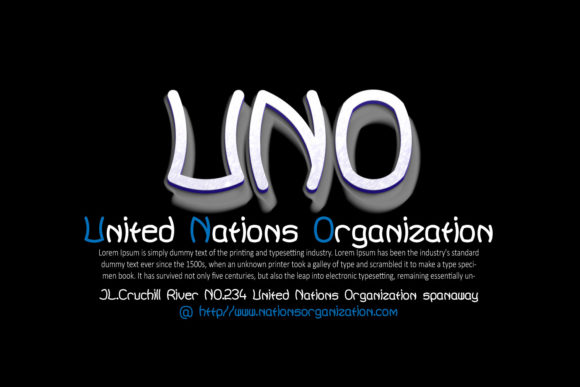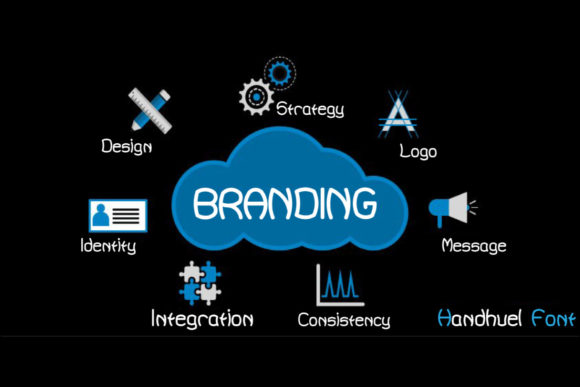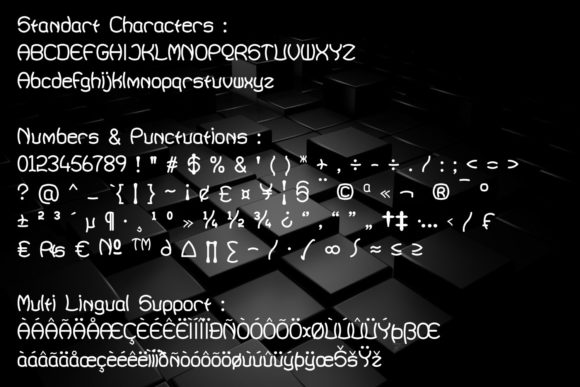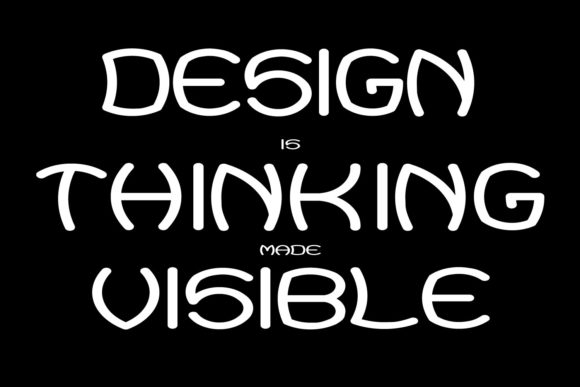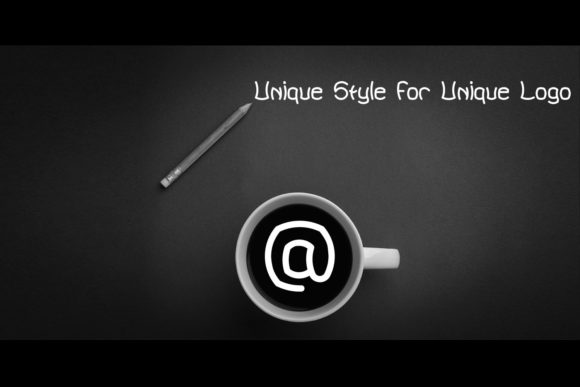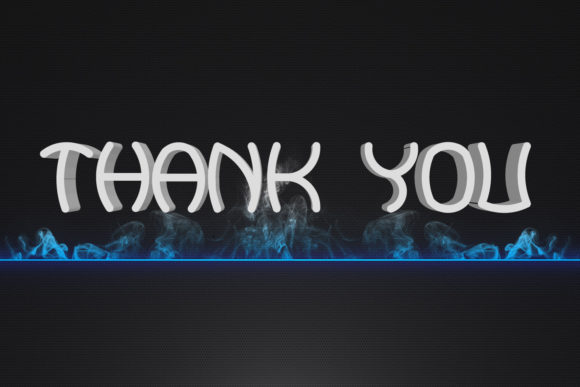
Introducing Handhuel Font: The Bouncy and Quirky Display Font You Need
Are you tired of using the same old fonts in your designs? Do you want to add a fresh and contemporary touch to your creative projects? Look no further than Handhuel Font, a bouncy and quirky display font that’s sure to make your designs stand out.
What is Handhuel Font?
Handhuel Font is a unique display font that’s perfect for designers and crafters who want to add a playful touch to their work. With its bouncy and quirky style, this font is sure to grab attention and add a fresh feel to any design.
Key Features of Handhuel Font
- Bouncy and Quirky Style: Handhuel Font has a fun and playful style that’s perfect for making a statement.
- Display Font: This font is designed specifically for display purposes, making it perfect for headlines, titles, and other attention-grabbing elements.
- Fresh and Contemporary: Handhuel Font has a modern feel that’s sure to add a fresh touch to any design.
- Easy to Read: Despite its playful style, Handhuel Font is easy to read, making it perfect for use in a variety of design projects.
How to Use Handhuel Font in Your Designs
Handhuel Font is perfect for a variety of design projects, including:
- Posters and Flyers: Add a bold and eye-catching headline to your posters and flyers with Handhuel Font.
- Social Media Graphics: Use Handhuel Font to add a playful touch to your social media graphics and make them stand out.
- Logos and Branding: Create a unique and memorable logo with Handhuel Font that will help your brand stand out.
- Invitations and Cards: Add a personal touch to your invitations and cards with Handhuel Font.
Why Choose Handhuel Font?
With so many fonts to choose from, why should you choose Handhuel Font? Here are just a few reasons:
- Unique Style: Handhuel Font has a unique and quirky style that’s sure to make your designs stand out.
- Versatile: Handhuel Font can be used in a variety of design projects, from posters and flyers to social media graphics and logos.
Tips for Using Handhuel Font Effectively
Here are a few tips for using Handhuel Font effectively in your designs:
- Use it Sparingly: Because Handhuel Font is a display font, it’s best to use it sparingly to avoid overwhelming your design.
- Pair it with Other Fonts: Pair Handhuel Font with other fonts to create a unique and visually appealing design.
| Font Name | Handhuel Font |
| Author | PojolType |
If you’re looking for a font that will add a fresh and contemporary touch to your designs, look no further than Handhuel Font. With its bouncy and quirky style, this font is sure to make your designs stand out. Whether you’re a designer or crafter, Handhuel Font is the perfect choice for any project.
Get Ready to Elevate Your Designs with Handhuel Font